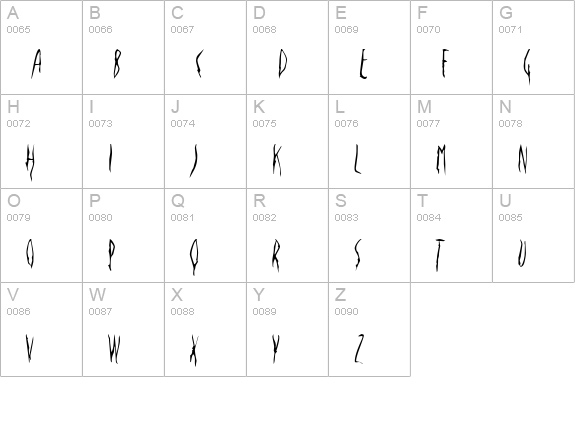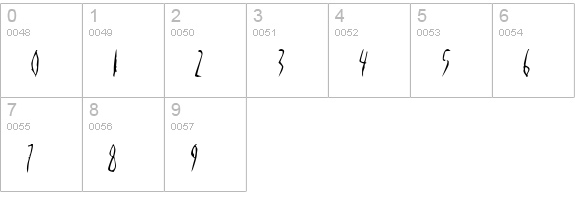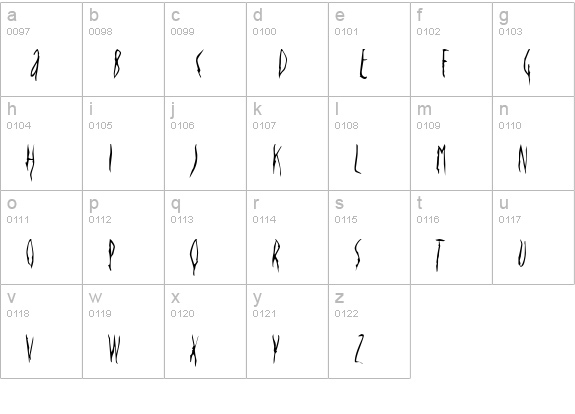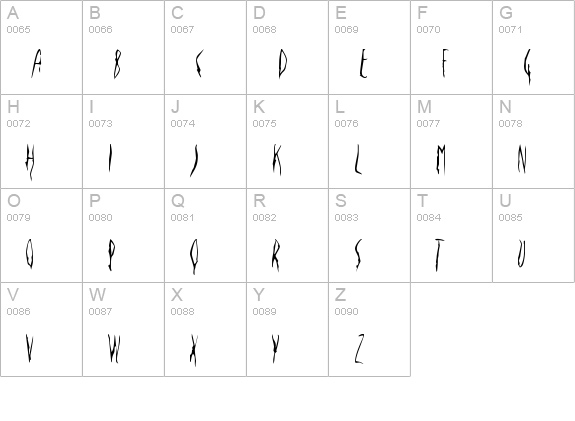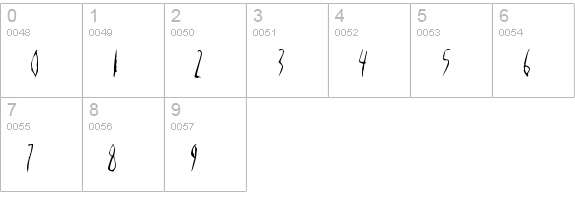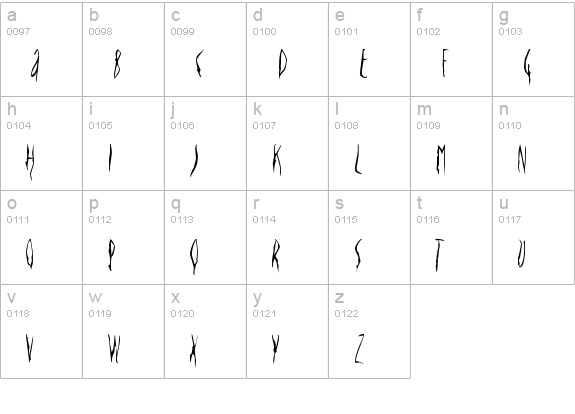
Deportees Font Details
Deportees font is a stunning display typeface that exudes elegance and sophistication. Its bold and modern design makes it perfect for a wide range of projects, from branding to editorial design. With its sleek lines and unique letterforms, Deportees font is sure to make a statement and captivate your audience. What makes Deportees font even more attractive is that it is completely free to download at FontsMarket.com. This means you can add this beautiful font to your collection without any cost, making it a valuable asset for any designer or creative professional. Don't miss out on the opportunity to elevate your projects with the exquisite Deportees font – download it today and unleash your creativity!